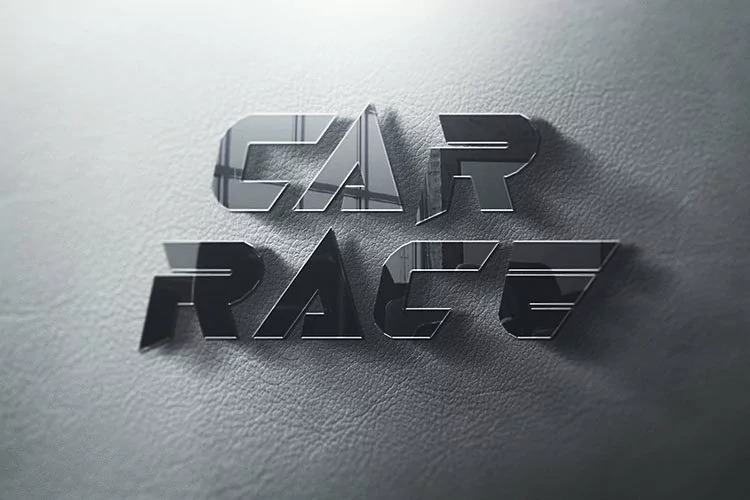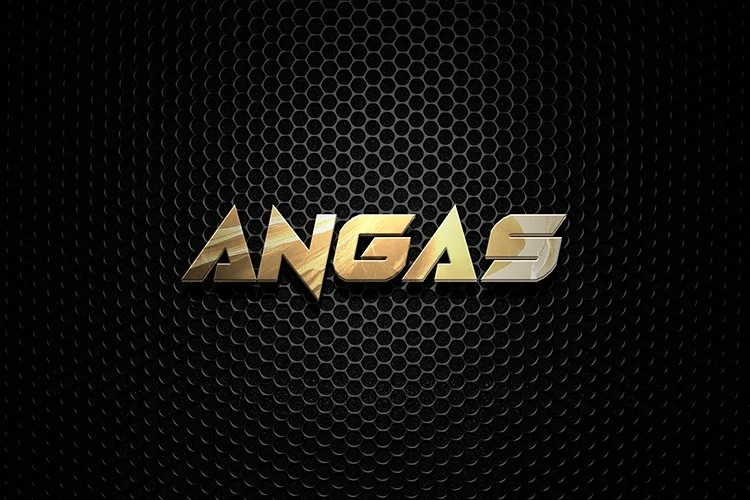
Angas Font
Angas Display Font
This is a modern futuristic semi-cursive font manufactured by EyeCone. This typeface has a unique angle spreading through each glyphs to enhance dynamic and flow. It will look stunning on any poster, flyer or print.
Use this font for your futuristic designs and explore its endless possibilities.